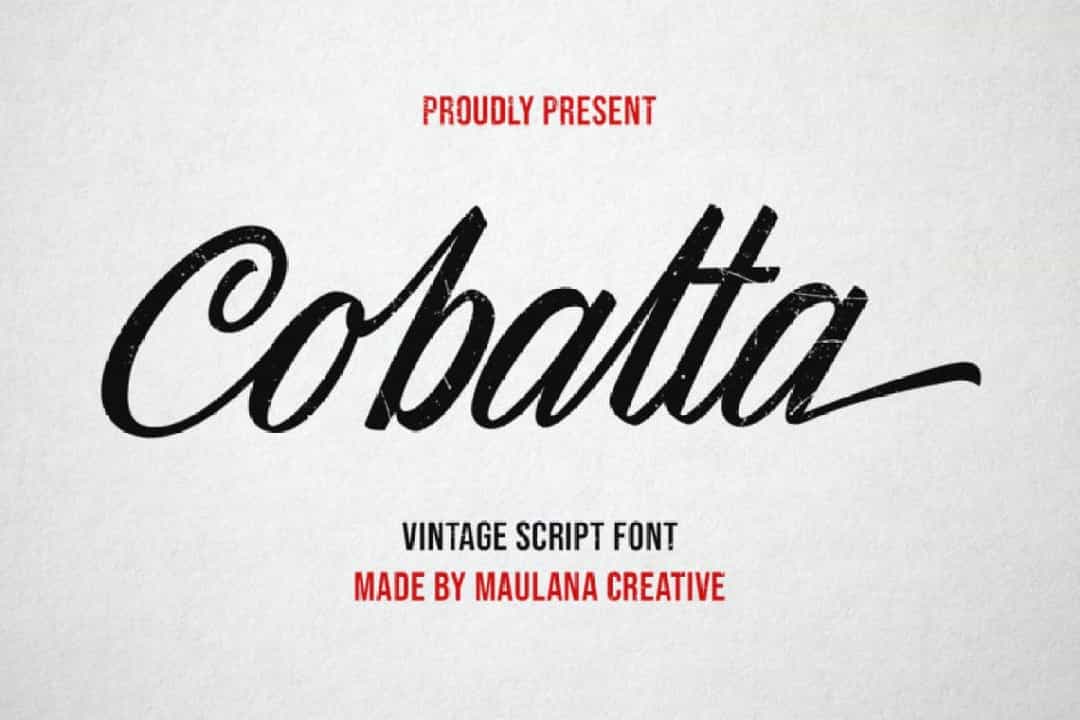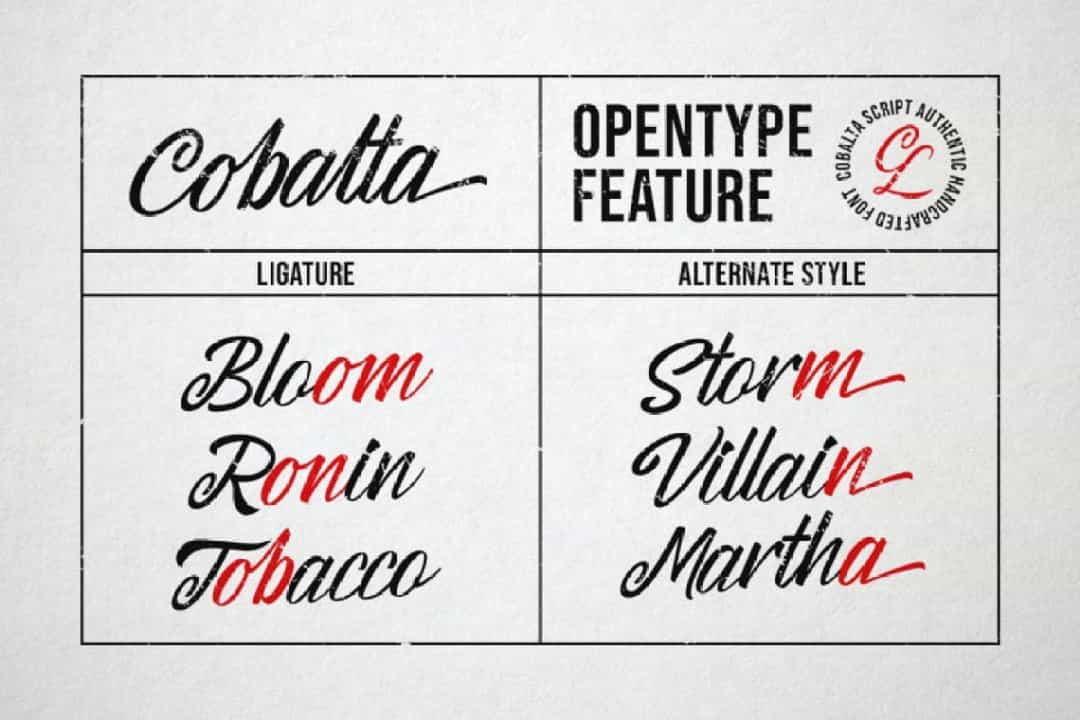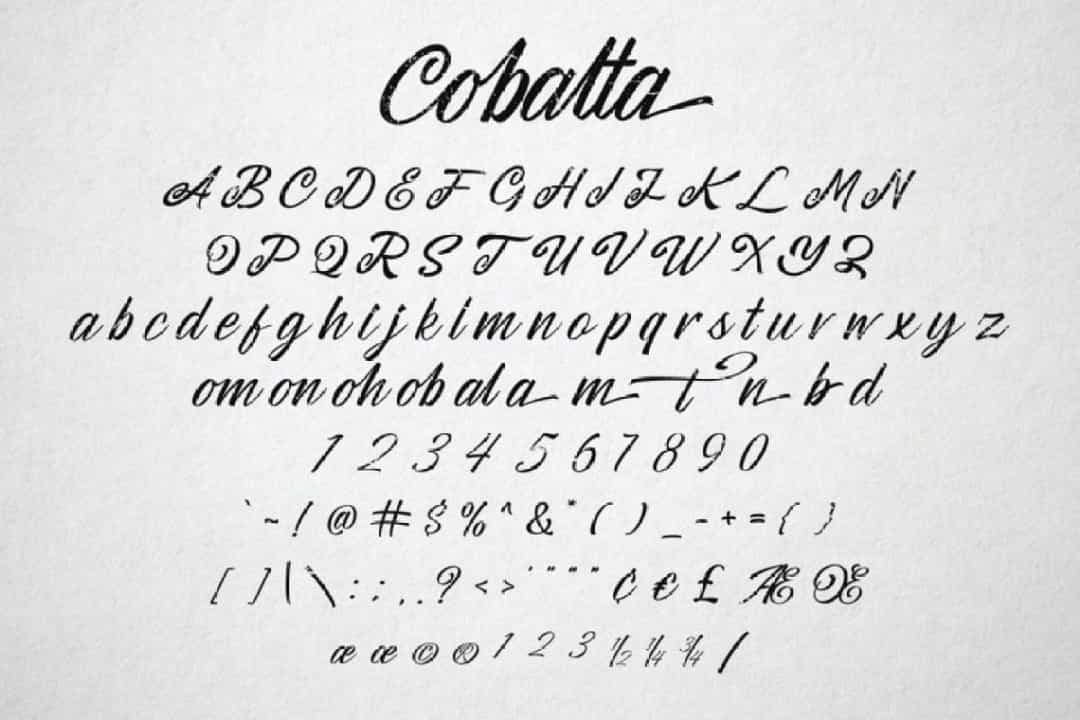
Discover Cobalta Font, part of the Script Vintage collection—a versatile and unique font perfect for adding a personal touch to your projects. Download it for free and enjoy crafting designs with style, from invitations to social media posts. This font is available exclusively for personal use, giving you the freedom to create without limits. Unlock your creativity with Cobalta Font today!
To give your designs a truly homemade touch, use “Cobalta Vintage Script Font” to design logos, typography quotes for books or magazines, headers for websites, clothing, packaging, branding and much more.